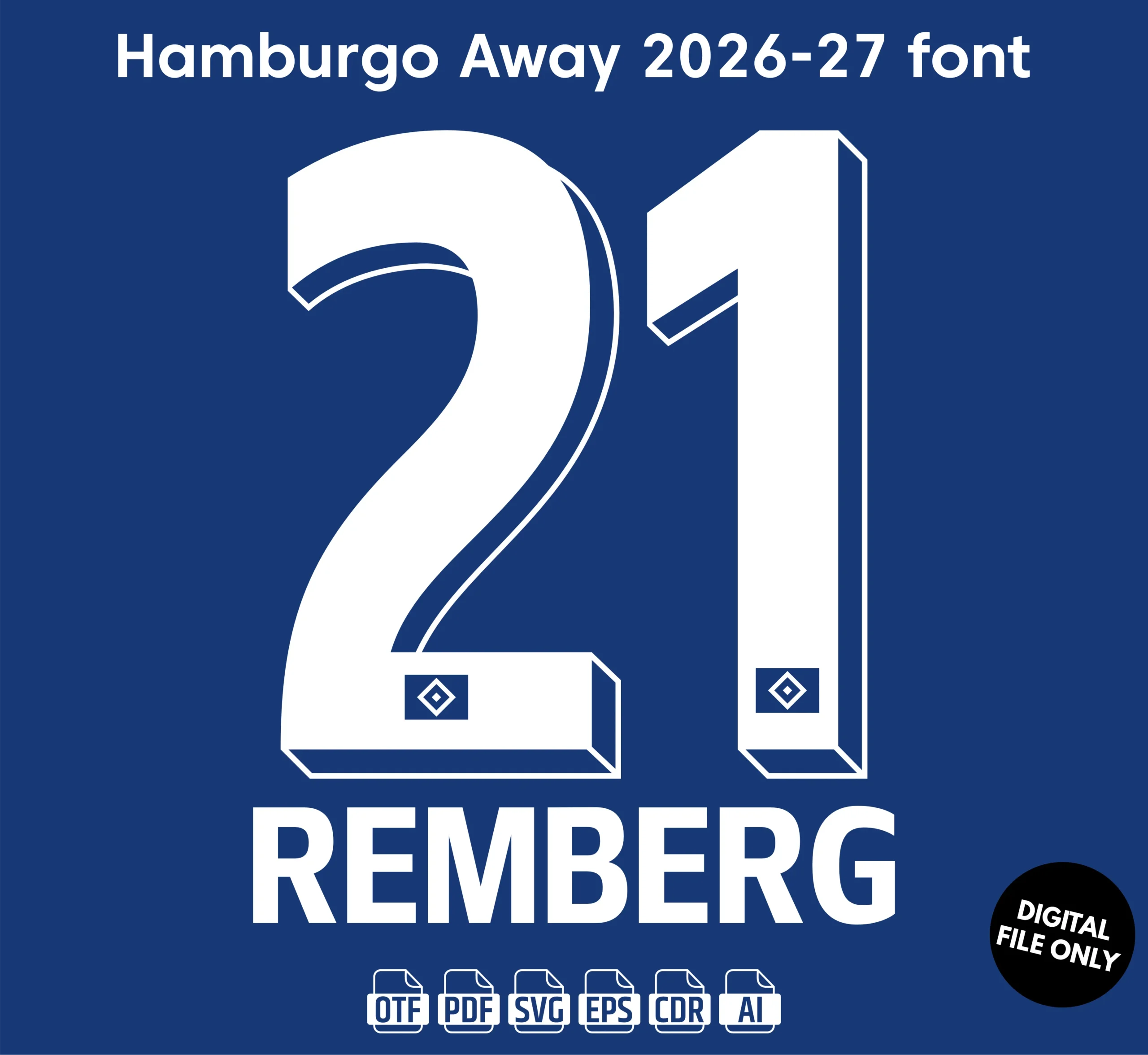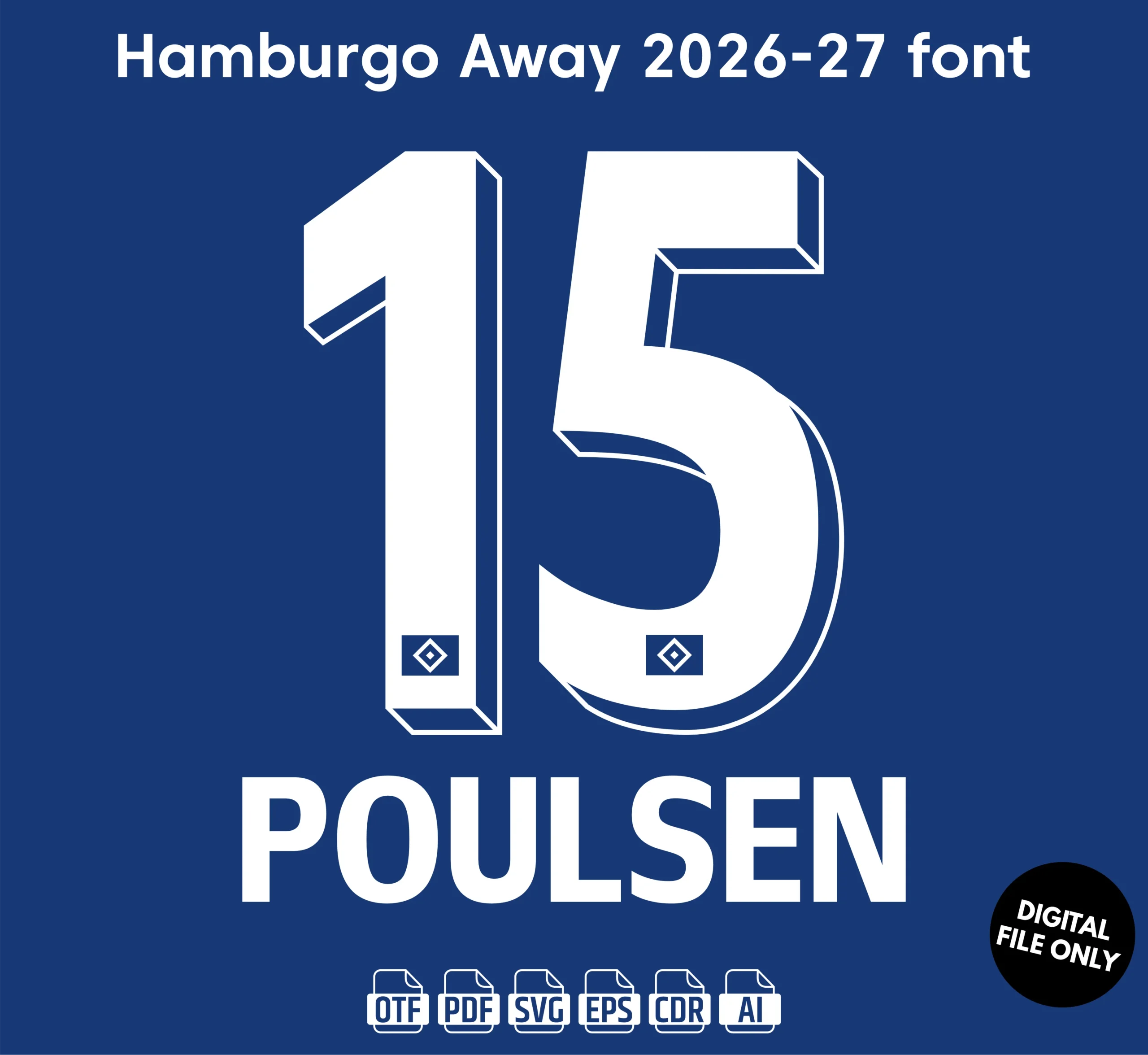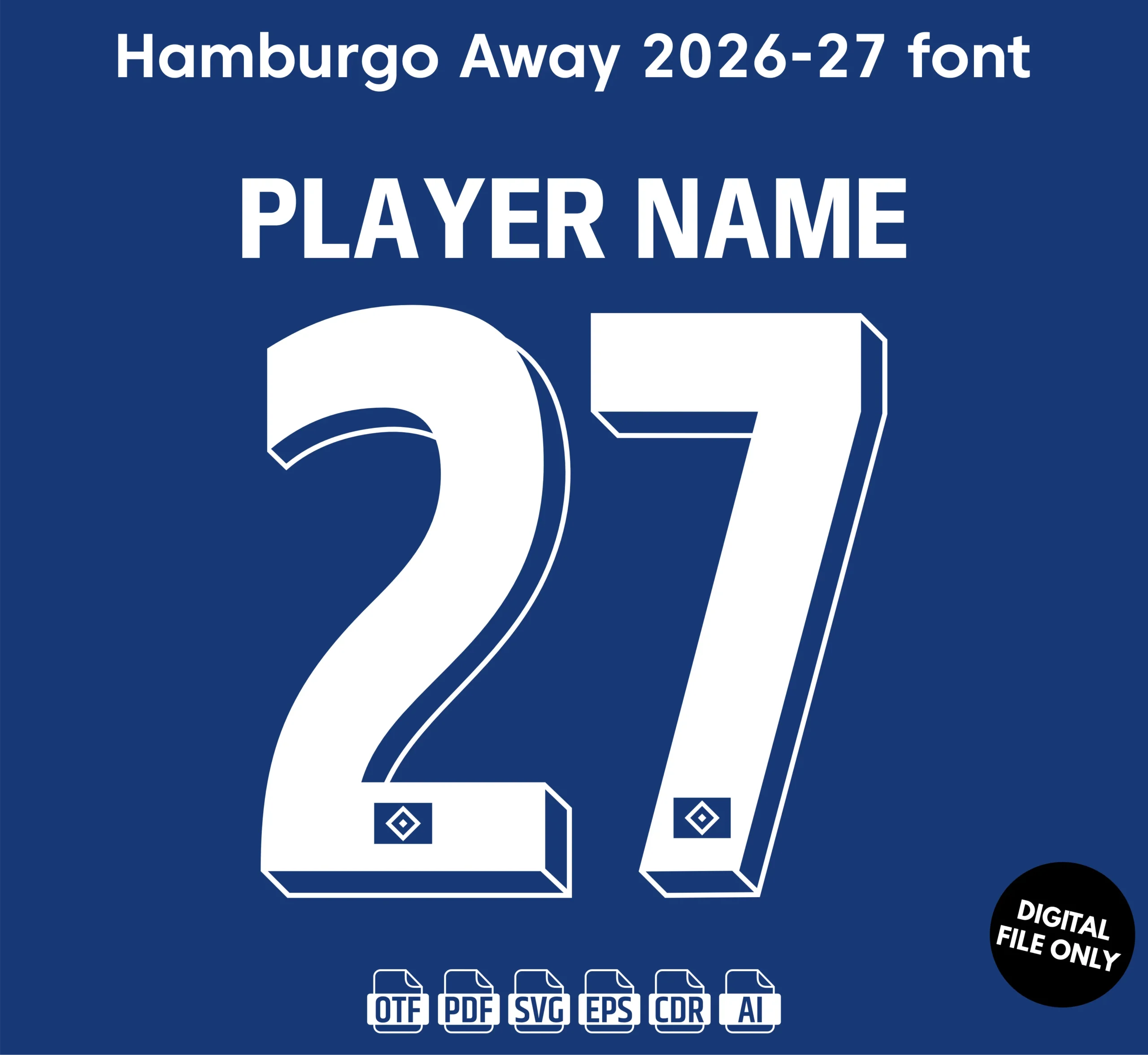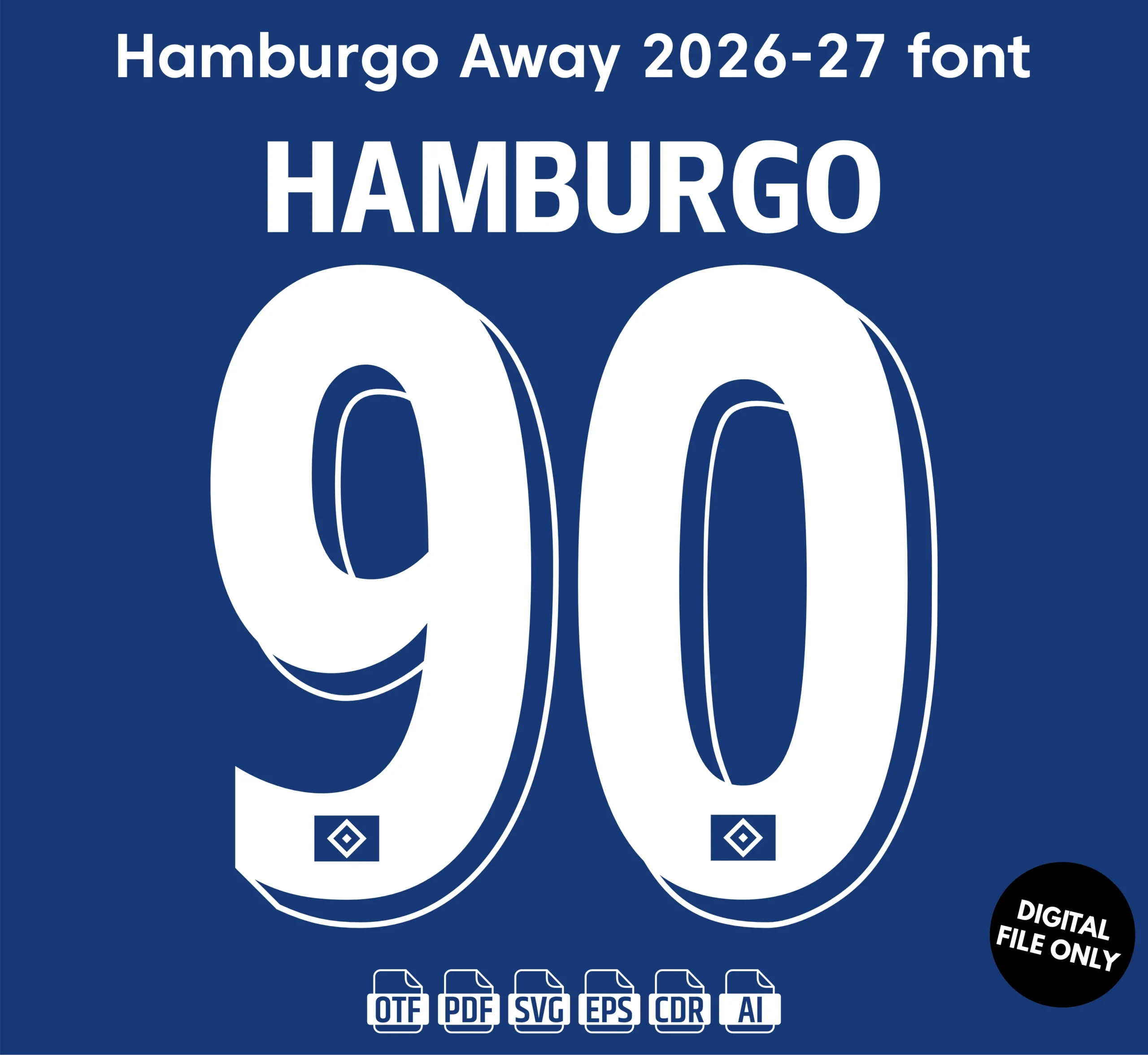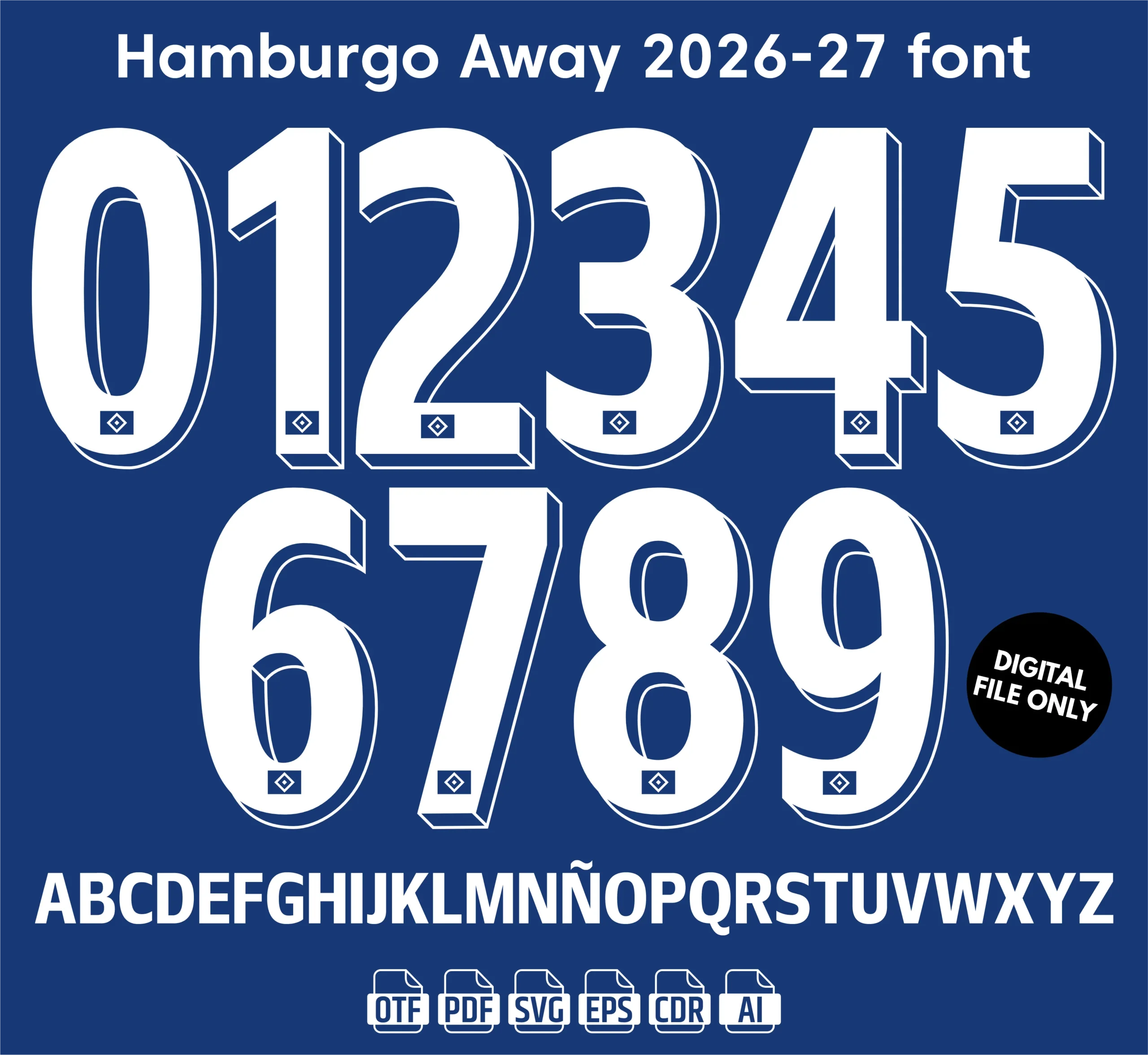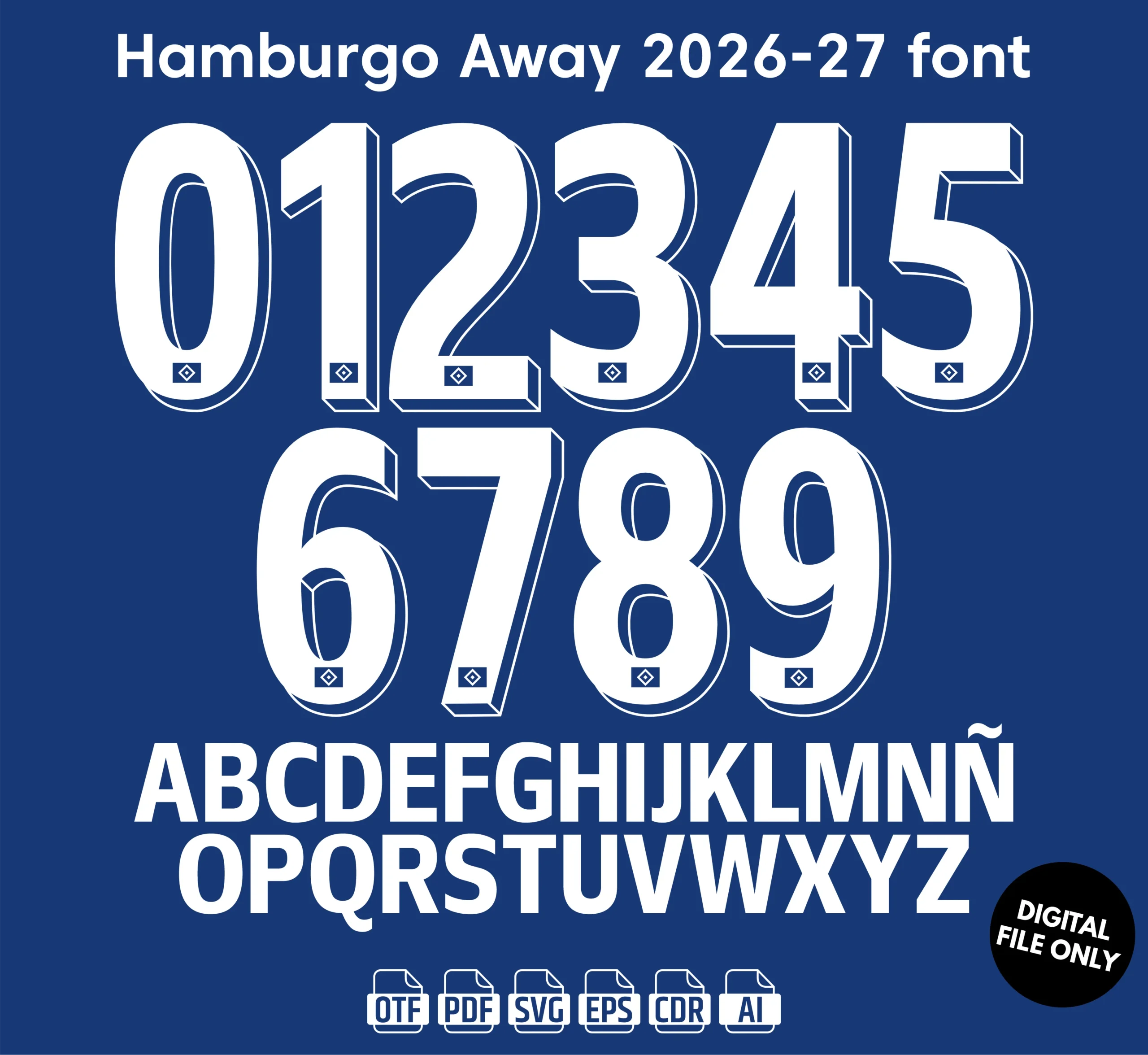
Hamburgo SV Away 2026-27 Font – Football Jersey Typeface Download
Hamburgo SV Away 2026-27 Font – Premium Football Jersey Typeface
Give your football designs a professional match-day look with the Hamburgo SV Away 2026-27 Font. This football jersey-style typeface is inspired by the typography of the club’s away kit and is perfect for creating authentic-looking names, numbers, jersey mockups, and sports graphics.
• Football jersey-style typography
• Clean and professional lettering
The Hamburgo SV Away 2026-27 Font adds a sharp and professional football aesthetic to your designs. Whether you’re creating a custom jersey, preparing a sublimation print, designing a football mockup, or creating sports content, this typeface is suitable for a wide range of football design projects.